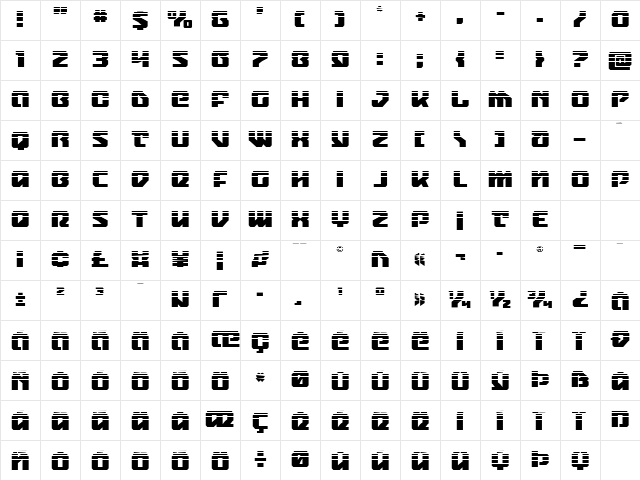
Legacy Cyborg 2 Halftone Regular Free Font
Legacy Cyborg 2 Halftone Regular
Design Context for Legacy Cyborg 2 Halftone
Legacy Cyborg 2 Halftone is a composed and adaptable typeface that performs quietly and consistently across a wide range of design contexts.